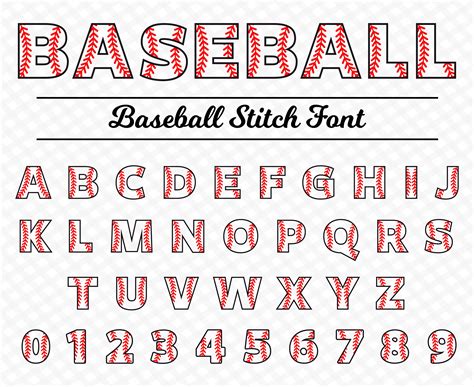
OSC Baseball SC Font: Generate, Copy, & Paste Easily
Hey guys! Ever wanted to spice up your designs with a cool, sporty font? Well, look no further! This article is all about the OSC Baseball SC font , a fantastic typeface that’s perfect for anything from sports-themed graphics to team logos. We’ll dive into what makes this font so great, how you can generate your own text using it, and, most importantly, how to easily copy and paste it wherever you need it. Get ready to level up your design game! We are going to explore all aspects of this amazing font, so you will be a pro at the end of this guide.
What is the OSC Baseball SC Font?
So, what exactly is the OSC Baseball SC font? Basically, it’s a stylish font that mimics the look of classic baseball team lettering. It’s got that bold, slightly rounded feel that screams “sports” without being overly complicated. It’s the kind of font that instantly grabs your attention and conveys a sense of energy and teamwork. The design of the font is clean and easily readable, which is super important when you’re using it in logos or on jerseys where readability is key. The OSC Baseball SC font comes in various styles, including regular, bold, and italic, giving you plenty of options to customize your designs. Whether you’re a graphic designer, a sports enthusiast, or just someone who loves cool fonts, the OSC Baseball SC font is a great addition to your font library. This font captures the essence of America’s favorite pastime, offering a playful and dynamic aesthetic. It’s perfect for creating a sense of excitement and team spirit in your projects. Its versatility allows it to be used in various applications, from print to digital media, making it a valuable tool for any designer. The font’s robust design ensures that it remains clear and impactful, even at different sizes and resolutions. You’ll find it’s a breeze to create visually appealing content that resonates with your audience. The font helps capture the nostalgia and excitement associated with baseball. With its clean lines and dynamic shape, it’s an excellent choice for logos, banners, social media posts, and more. This font stands out due to its unique combination of classic baseball aesthetic with modern design. This makes it a perfect tool for designers looking to create engaging and memorable content. Let’s get right into the next step.
Tips and Tricks for Using the OSC Baseball SC Font
Okay, here are some tips and tricks to help you make the most of the OSC Baseball SC font and really nail those designs. First off, consider the context. Where are you using the font? For a logo, bold and impactful is great. For body text, you might want to use a more subtle approach. Play with different sizes and styles. You want to see what fits best for your needs. Experiment with different colors to create visually appealing designs. This font looks great in classic baseball colors (red, navy, white), but don’t be afraid to try something unexpected. Using complementary colors can create an appealing contrast. Think about the overall layout and design. The OSC Baseball SC font can be bold, so make sure it complements the other design elements, not clashes with them. Sometimes, less is more. Don’t overdo it with the font. Use it strategically to highlight key information or create a specific visual effect. It can be easy to go overboard, but moderation is always key. It can be useful in adding effects like shadows or outlines. It will make the text pop even more. When you’re using the font for a logo, make sure it’s clear and readable at different sizes. You want to make sure your audience can always understand your message. And finally, always test your design on different devices and screens to ensure it looks good everywhere. These tips will help you create professional, eye-catching designs every time. Remember to have fun with it! The more you experiment with the font, the better you’ll get at using it effectively. Try different styles and sizes to create stunning visuals. You’ll soon discover the versatility and impact of this awesome font.
Conclusion: Get Creative with OSC Baseball SC Font
So there you have it, folks! The OSC Baseball SC font is a fantastic choice for anyone looking to add a touch of sporty flair to their designs. We’ve covered everything from what the font is all about to how to generate it, copy it, and paste it wherever you need it. Remember the key takeaways: a generator saves time and effort, copying and pasting is super easy, and you can use the font on a wide variety of platforms. Now, get out there and start creating! Whether you’re designing a team logo, a social media post, or a flyer, the OSC Baseball SC font is a perfect way to add a touch of sporty flair to your projects. With this guide, you’re well-equipped to create eye-catching designs that capture attention and convey your message effectively. So go forth and create some amazing designs! We hope this article has inspired you to explore the creative possibilities of the OSC Baseball SC font. The possibilities are endless. Happy designing!